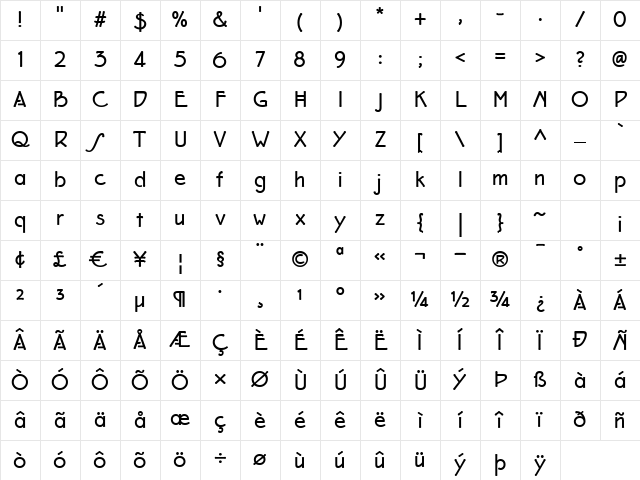
P22 Eaglefeather Bold
Foundry: P22 type foundry
Designer: David Siegel and Carol Toriumi-Lawrence
Design Context for P22 Eaglefeather
P22 Eaglefeather is a composed and adaptable typeface that performs quietly and consistently across a wide range of design contexts. Its bold stroke weight gives it real presence on the page.